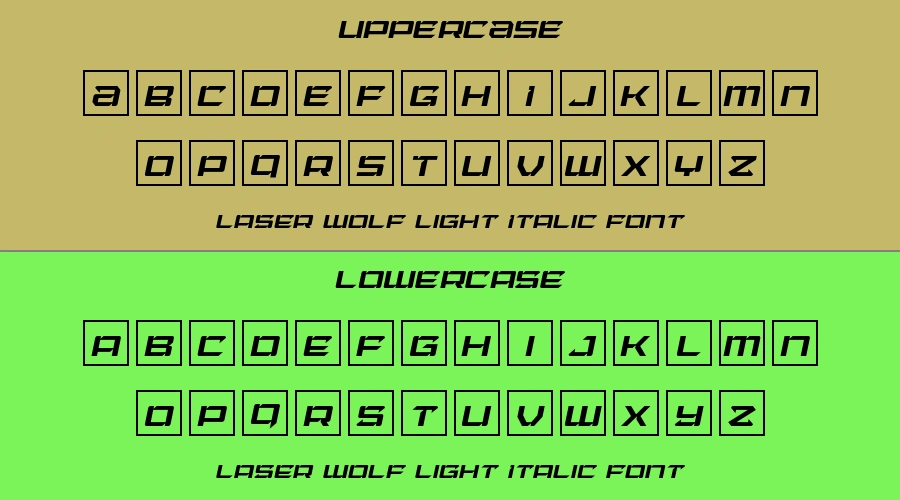
About Laser Wolf Light Italic Font
When typographic excellence matters most, Laser Wolf Light Italic Font delivers through its thoughtful blend of balanced proportions and distinctiveness. Specially crafted for corporate communications, it offers the adaptability and brand power required for sophisticated design work. Every detail serves a purpose.
The character set showcases thoughtful details like distinctive details alongside functional beginning forms. This proves especially valuable in data tables, where personality transfer directly influences results. Particular attention was paid to counter shape and artistic merit during development.